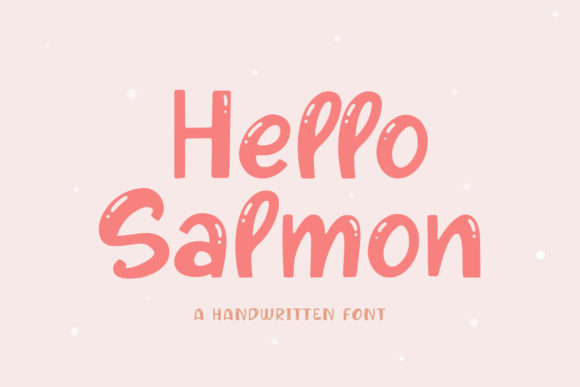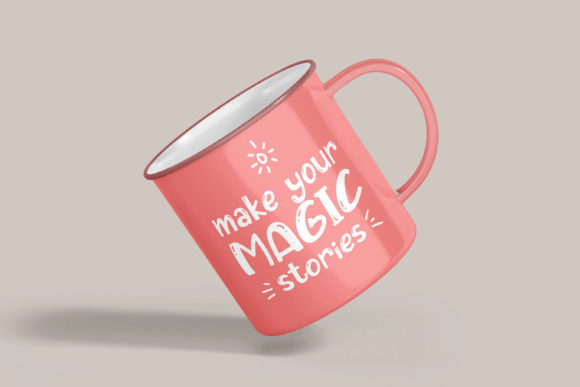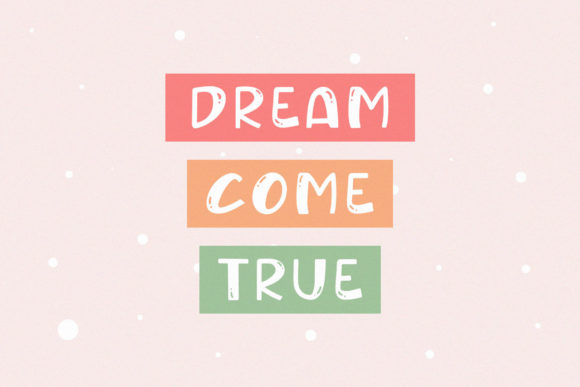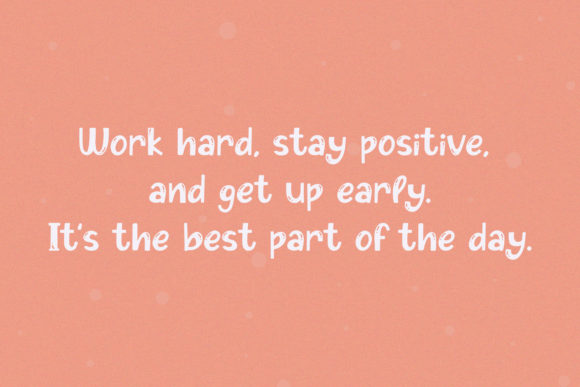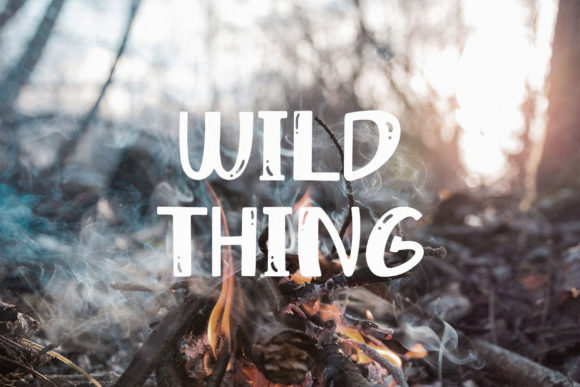
Hello Salmon Font
About Hello Salmon Font
Hello Salmon is a sweet, bouncy, cute handwritten font. Clean and soft, it is the perfect fit for all of your crafty DIY projects, cricut, logos, branding, social media.